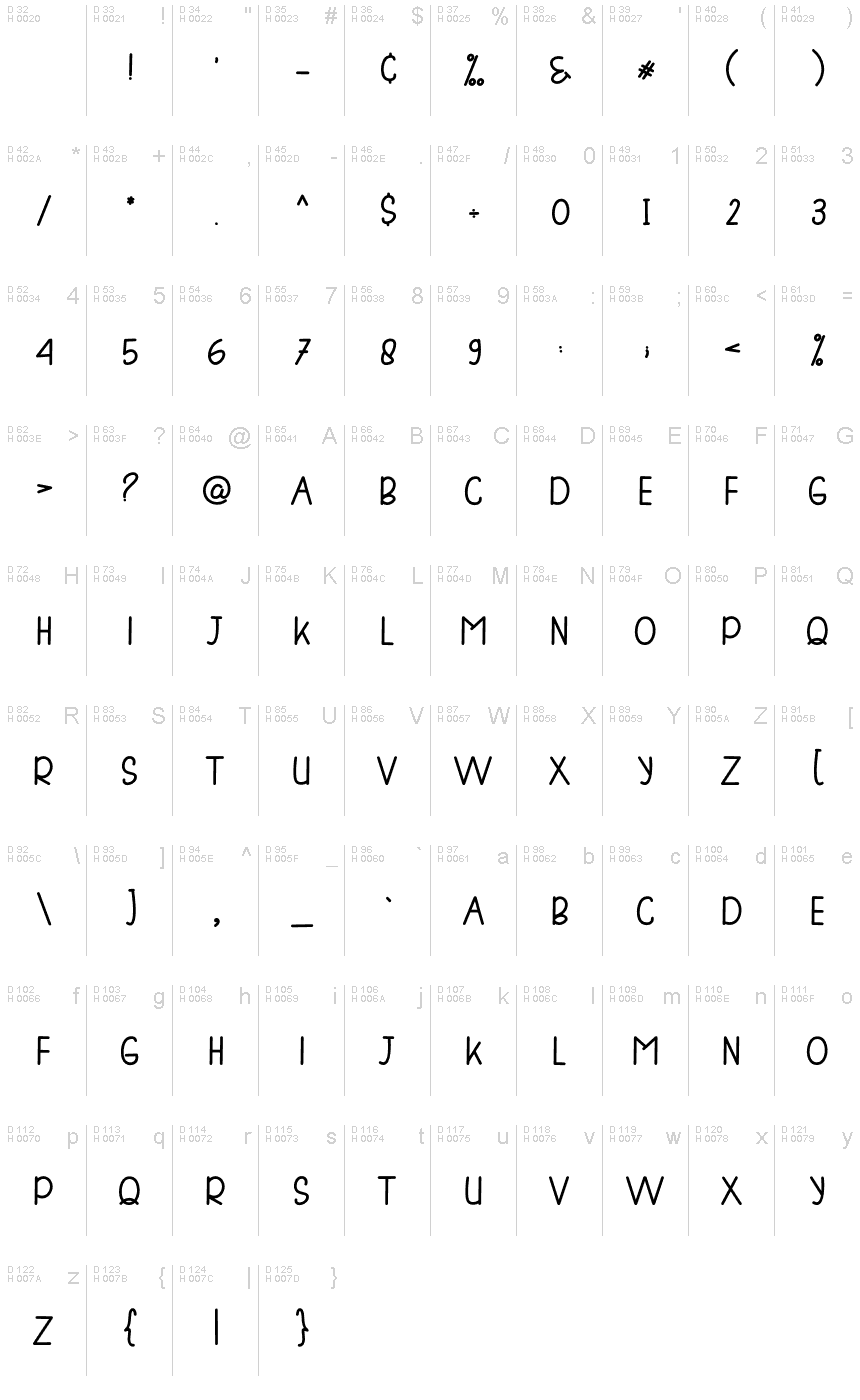
Blessed
Blessed, a semi-light handwritten font crafted by Etik Fatimah, exudes a charm that is both personal and elegant. Its fluid strokes and varied line weights capture the essence of human touch, making it an ideal choice for projects that require a sense of intimacy and warmth. The aesthetic appeal of Blessed lies in its delicate balance between casual spontaneity and meticulous design—a reflection of Fatimah's artistic vision.
This font's versatility allows it to flourish across various creative landscapes, from heartfelt invitations to branding that yearns for a signature touch. With Blessed's gentle curves and subtle sophistication, your design endeavors will resonate with authenticity and grace. Whether you're aiming to convey heartfelt emotion or simply add a dash of handmade finesse, Blessed stands ready to elevate your work with its distinct style.